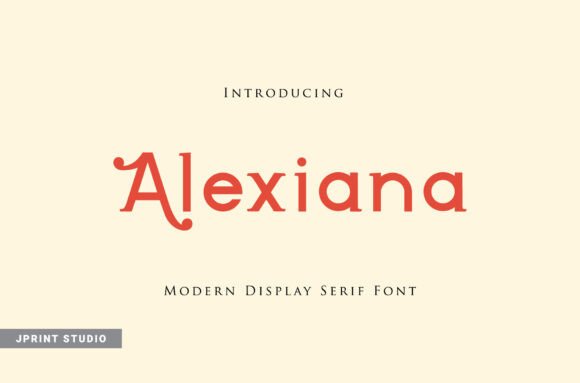
Introducing Alexiana: The Vintage-Modern Serif Font That’s Stealing Hearts
I’ll never forget the design struggle I faced while working on a retro-themed project for a client. I had to find the perfect font that would transport the audience back to the golden era of typesetting. After hours of scouring the internet, I stumbled upon Alexiana – a vibrant serif font that flawlessly merges yesteryear with the contemporary. In this article, I’ll share my love for Alexiana, its features, and how to make the most of it in your designs.
An Honest Review of Alexiana
What I Love About Alexiana ✨
- ✅ Vintage allure: Alexiana has a unique ability to evoke a sense of nostalgia, making it perfect for retro-themed projects.
- ✅ Modern and bold: The font’s modern, bold alternatives add a touch of sophistication to any design.
- ✅ Unique ligatures: Alexiana’s ligatures are a game-changer, allowing you to add an extra layer of creativity to your designs.
- ✅ Versatile: Whether you’re designing a logo, brochure, or social media graphics, Alexiana adapts seamlessly to any project.
- ⚠️ Some characters may require manual kerning: While Alexiana is generally well-spaced, some character combinations might require manual adjustment for optimal results.
- ⚠️ Limited availability of certain glyphs: Although Alexiana comes with a range of glyphs, some special characters might not be included.
The Designer Inspiration Behind Alexiana
Alexiana was designed with the goal of creating a font that would evoke the nostalgia of the golden era of typesetting while still feeling modern and fresh. The designer’s inspiration came from classic serif fonts, combined with a passion for unique ligatures and stylistic alternates. The result is a versatile font that’s perfect for designers, crafters, and creative hobbyists.
| Font Name | Alexiana Font |
| Author | JprintStudio |
| What makes Alexiana unique? | Alexiana’s unique blend of vintage and modern elements, along with its range of ligatures and stylistic alternates, sets it apart from other serif fonts. |
| Is Alexiana suitable for body text? | While Alexiana is a beautiful font, it’s best suited for headlines and titles. For body text, consider a font with better readability. |